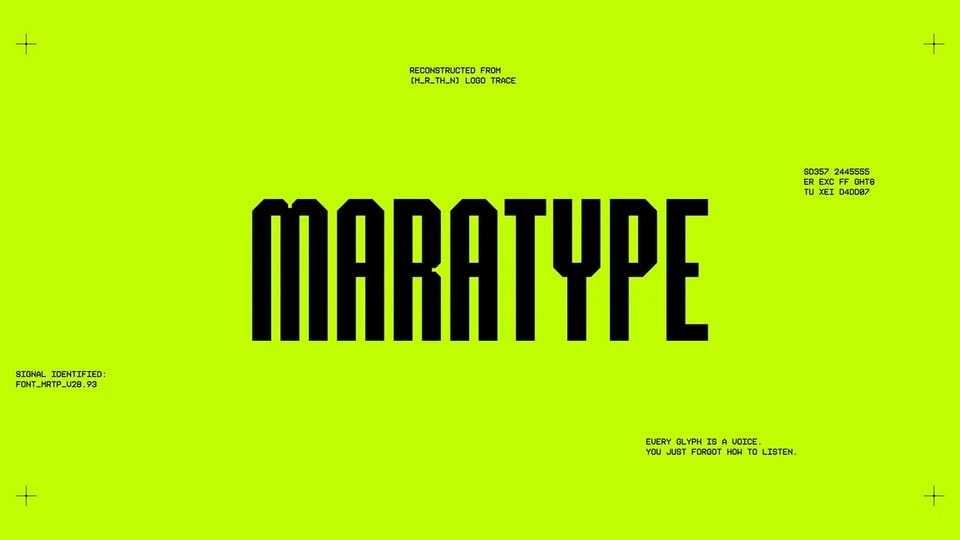
Download Maratype font, a bold, ultra-condensed display typeface with a retro-futuristic edge and a commanding digital presence inspired by techno-aesthetic codes, sci-fi visuals.